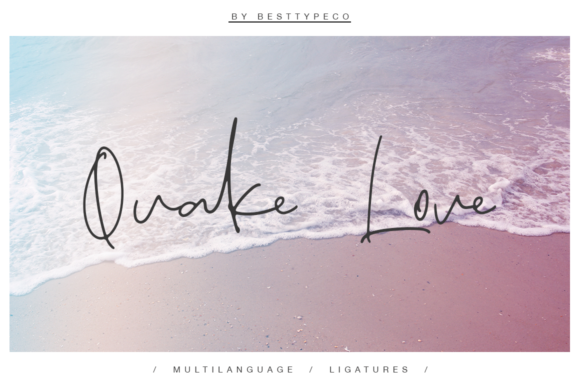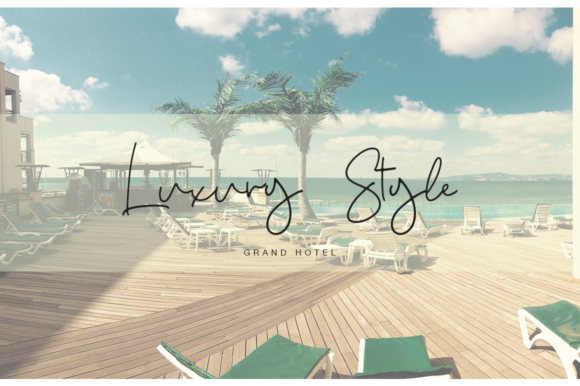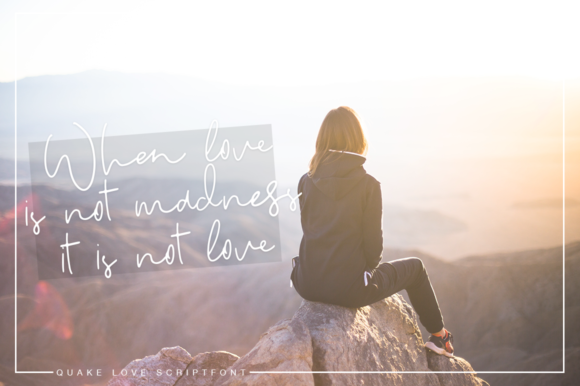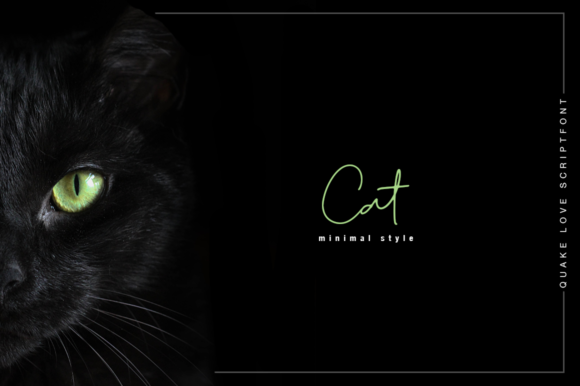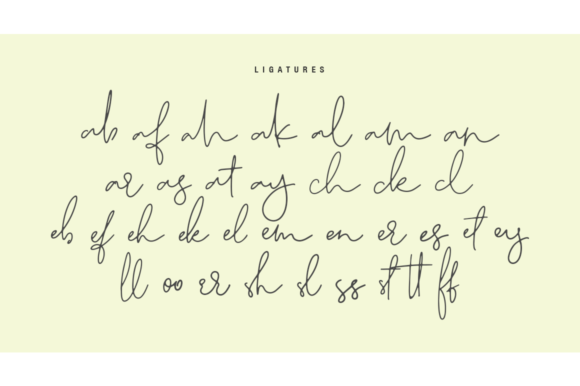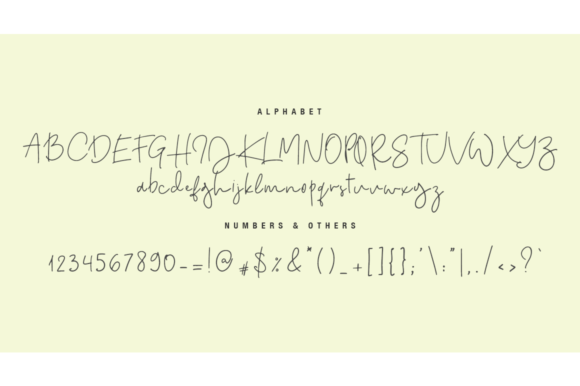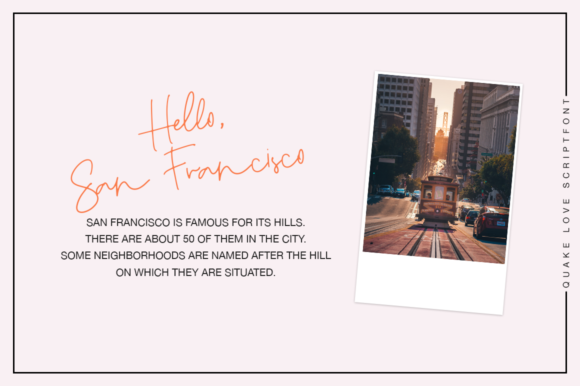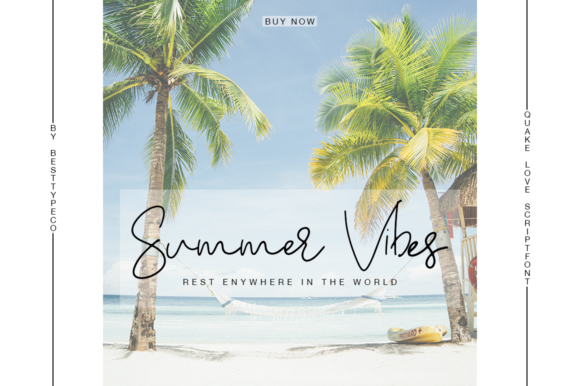
Quake Love Font
About Quake Love Font
The Quake Love is a fresh, handmade calligraphy font. It has a modern and feminine look which makes it perfect for a wide variety of designs.